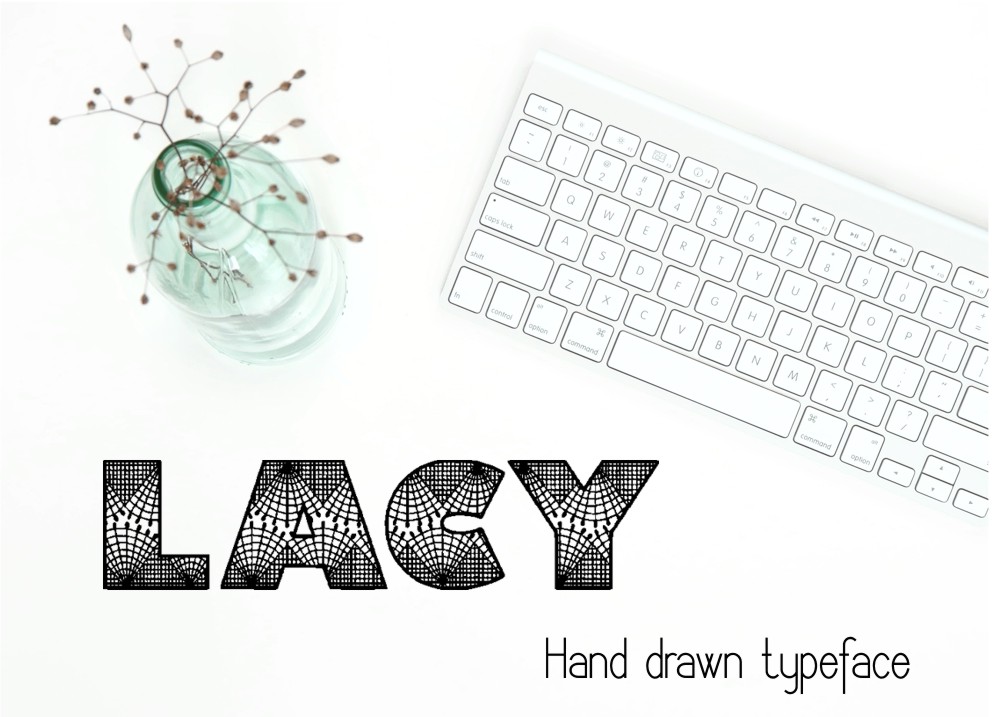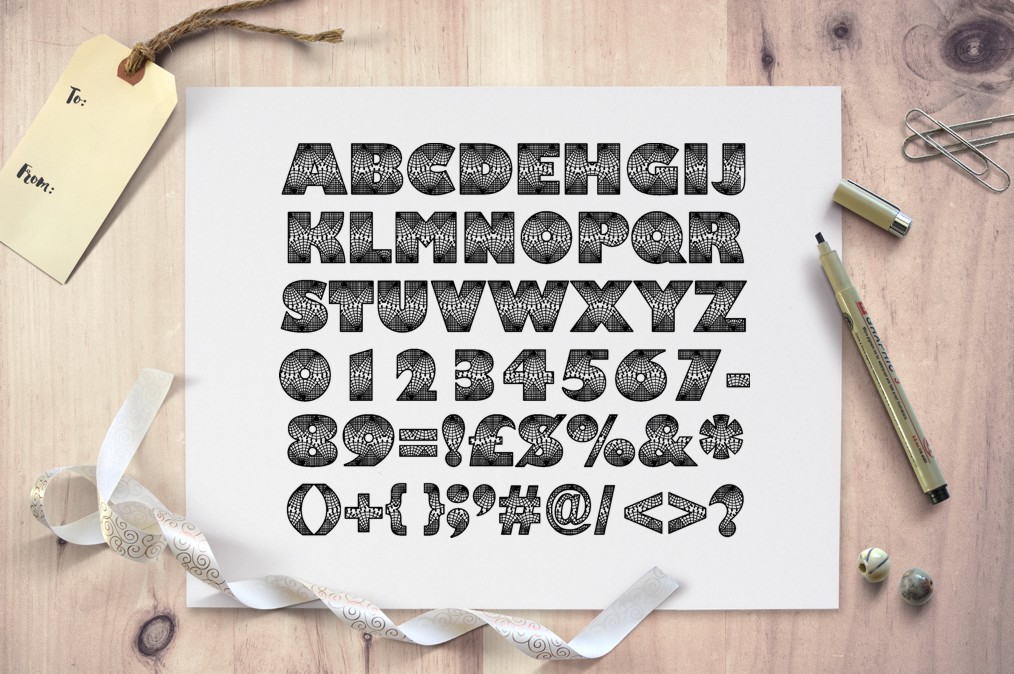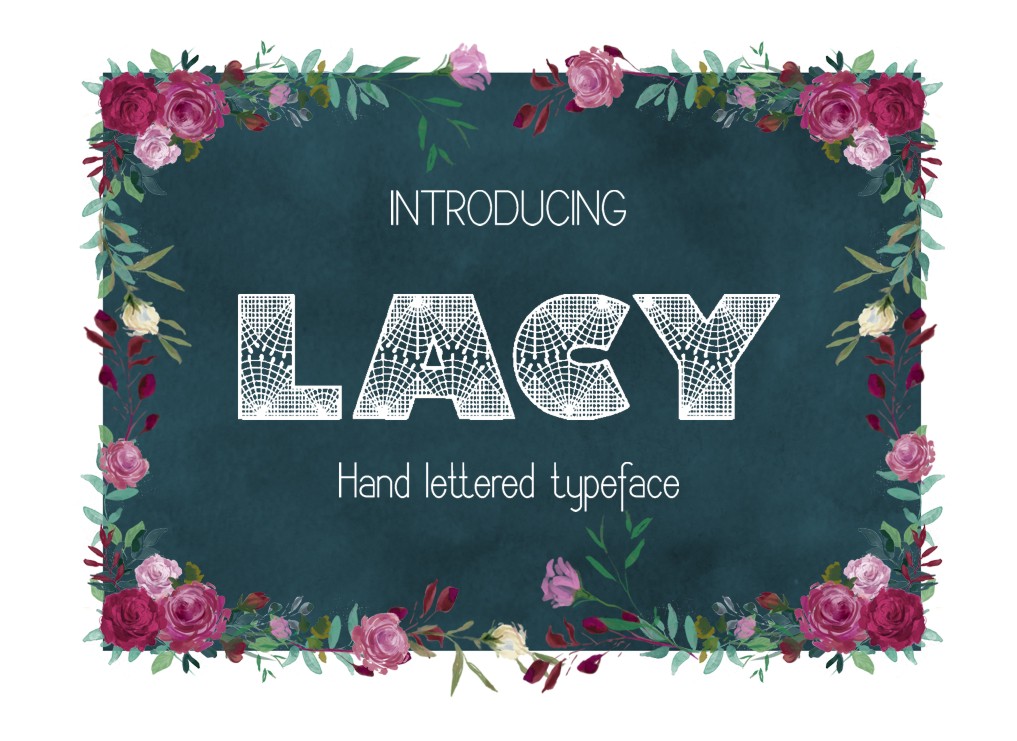
Lacy Font
About the Lacy Font
The wait is over! The incredible Lacy Font is now available for your design toolkit. Lacy, a decorative font by Eva Barabasne Olasz.
Lacy’s elegant, yet playful, character makes it ideal for headlines, logos, and short-form text in branding projects, invitations, or packaging design where a touch of vintage charm is desired. Its decorative nature, however, makes it unsuitable for body text or user interfaces requiring high legibility.
Pairing Lacy with a clean sans-serif like Montserrat or a classic serif such as Garamond creates a balanced and sophisticated aesthetic. For a more playful feel, consider pairing it with a rounded sans-serif such as Playfair Display. Avoid pairing it with other highly decorative fonts to prevent visual clutter.
Lacy exudes a sophisticated yet approachable personality. It’s best suited for brands aiming for a timeless, feminine, or subtly whimsical feel.